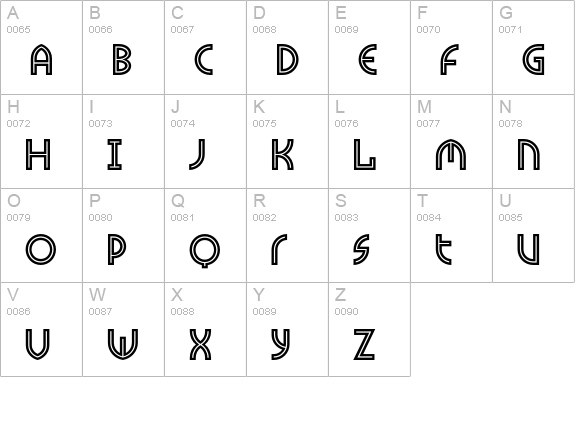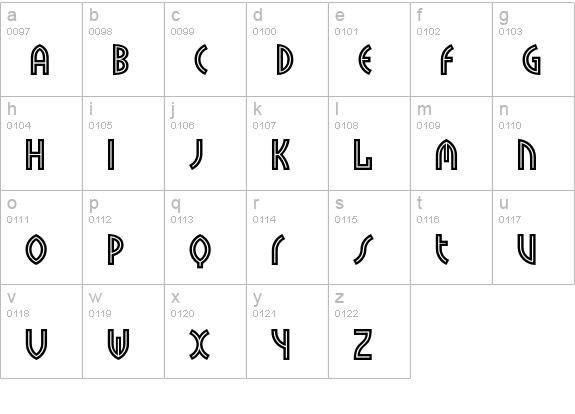
Introducing Tokyo-Two, a captivating and versatile font that effortlessly combines modernity with a touch of elegance. This font exudes a sense of sophistication and style, making it the perfect choice for a wide range of design projects. Whether you're designing a logo, creating eye-catching advertisements, or crafting beautiful invitations, Tokyo-Two will add a unique and captivating element to your work. With its clean lines and sleek curves, Tokyo-Two is both visually appealing and highly legible, ensuring that your message is conveyed with utmost clarity. Its carefully crafted letterforms maintain a perfect balance between simplicity and intricacy, making it suitable for both headline and body text usage. The font's versatility allows it to seamlessly adapt to various design styles, from minimalistic and contemporary to bold and expressive. One of the most enticing aspects of Tokyo-Two is that it is freely available to download at FontsMarket.com. This means that you can easily access this remarkable font without any cost, making it a valuable asset for both professional designers and enthusiasts alike. By offering the font for free, the creators of Tokyo-Two aim to empower and inspire creativity within the design community. Whether you're a seasoned designer looking to enhance your typography arsenal or a budding artist exploring the world of graphic design, Tokyo-Two is a must-have font that will elevate your work to new heights. Its timeless appeal and effortless versatility make it suitable for a wide range of projects, ensuring that you can always rely on this font to make a lasting impression. In conclusion, Tokyo-Two is a stunning font that effortlessly combines modernity and elegance. Its clean lines, sleek curves, and impeccable legibility make it a versatile choice for a variety of design projects. Best of all, this remarkable font is freely available to download at FontsMarket.com, allowing you to easily access its captivating potential. So why wait? Embrace the power of Tokyo-Two and let your creativity soar to new horizons.